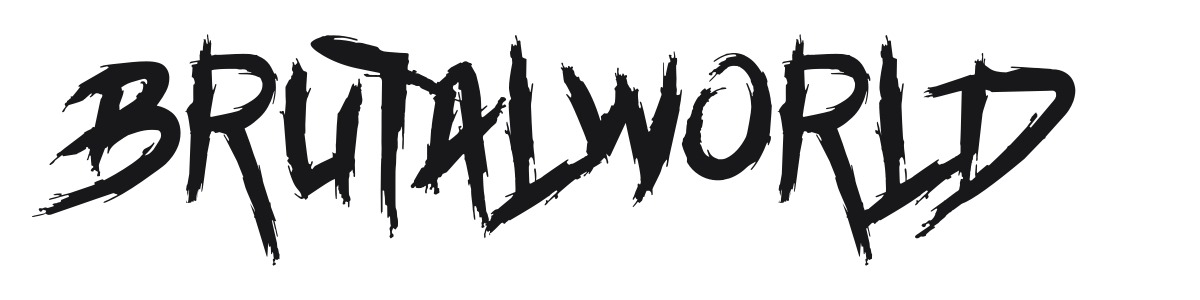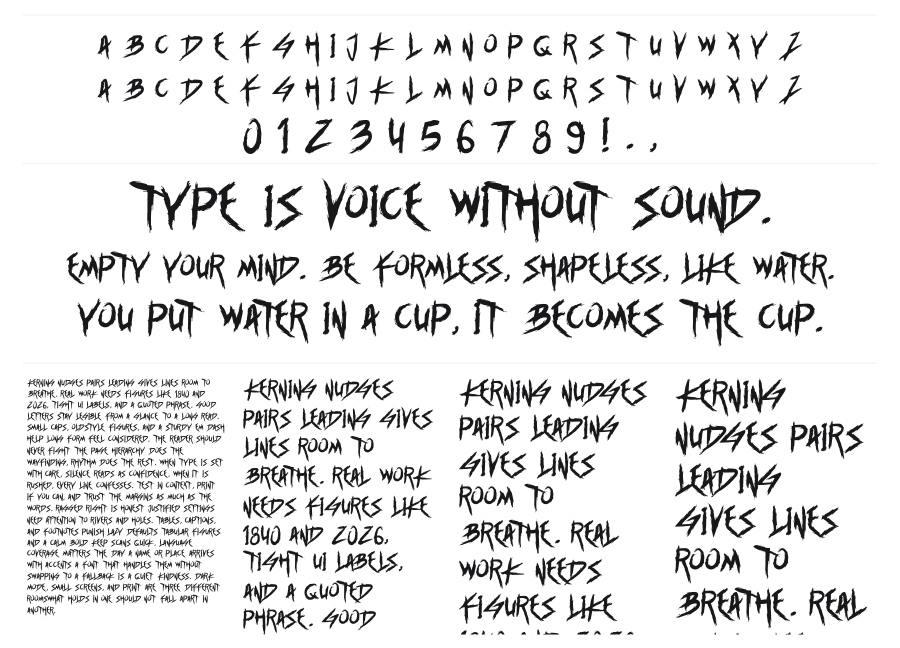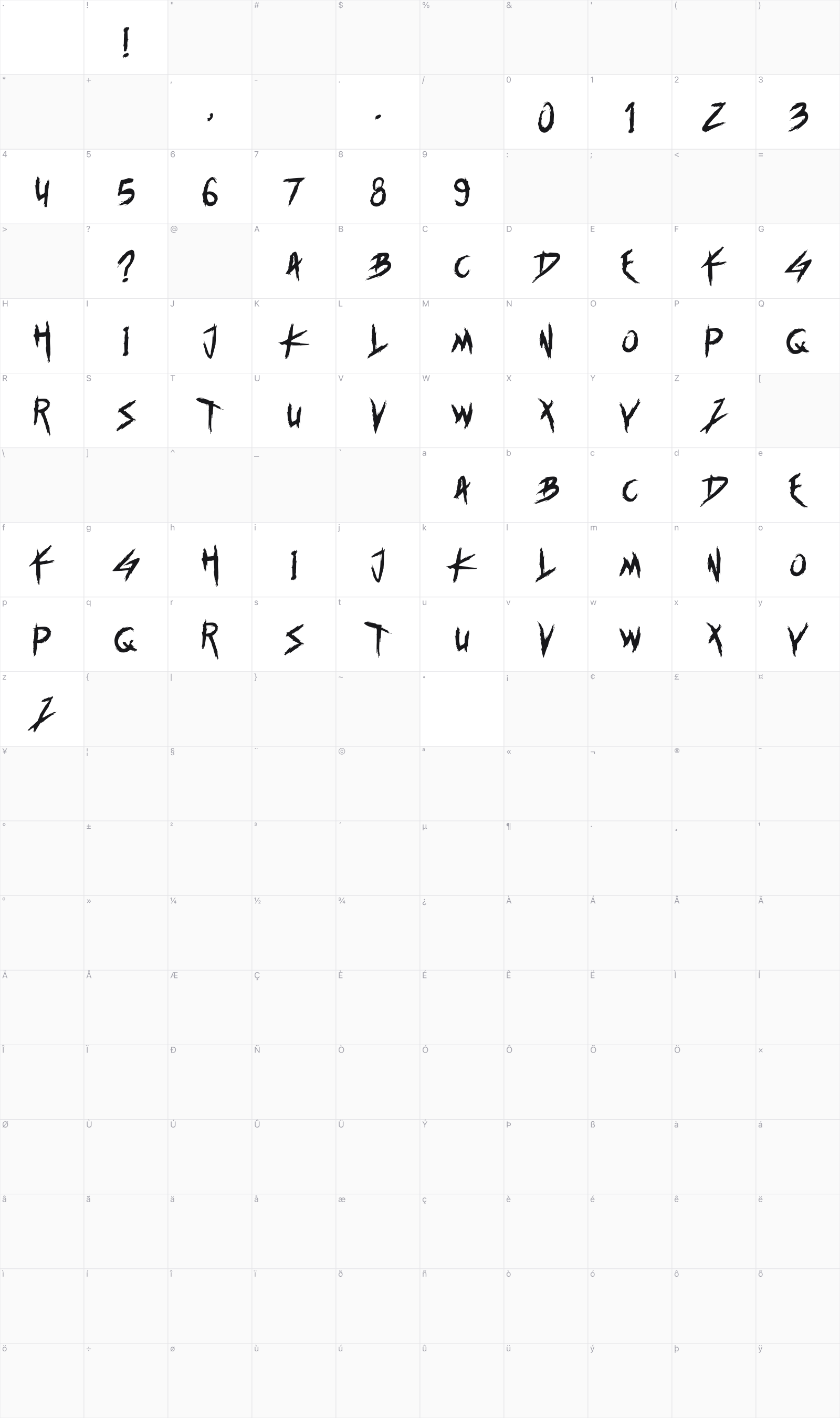
Brutalworld
Brutalworld is a savage, heavily distressed brush font that looks like it was painted with a shredded bristle brush at full speed. Every stroke fractures and frays at the edges, giving the whole design an unstable, confrontational energy. It gravitates naturally toward metal album covers, horror titles, punk posters, and any project that needs to look dangerous.